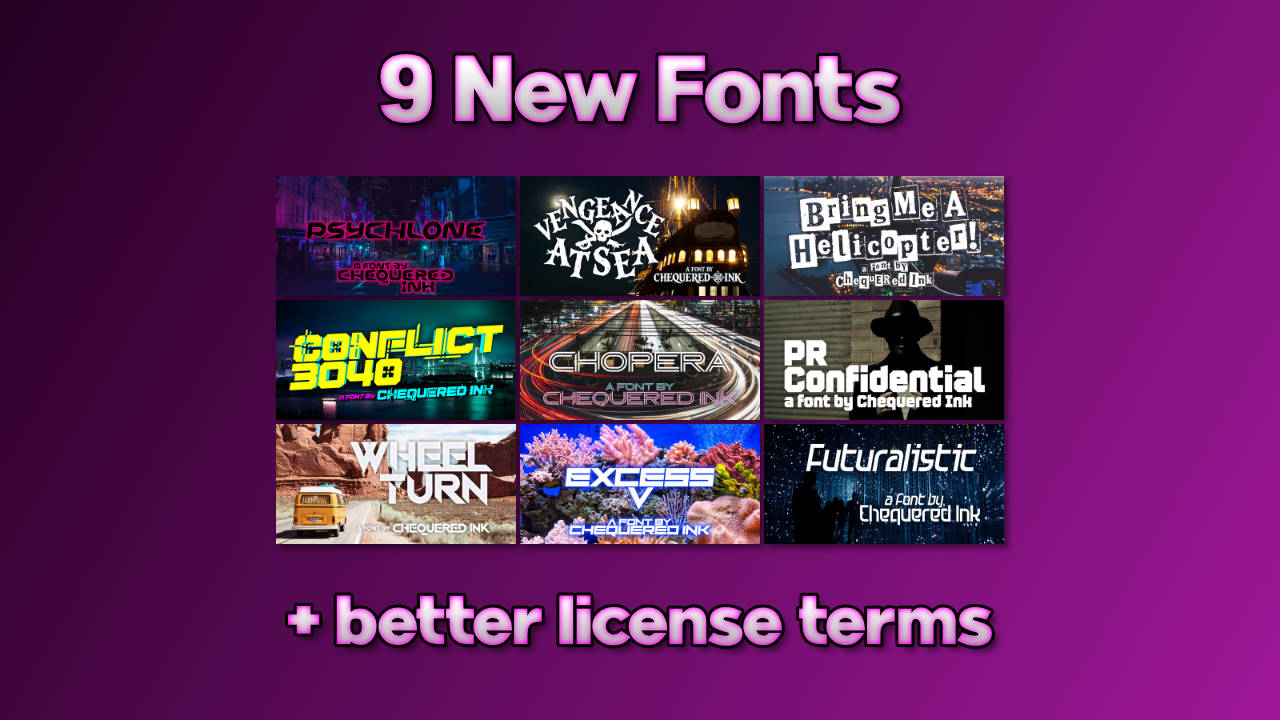
The new fonts cover a variety of different styles, they are:
- Conflict 3040 - a cyberpunk military font
- Chopera - a futuristic techno font
- PR Confidential - a spy-themed, chunky font
- Wheel Turn - a sharp, techno font
- Futuralistic - a thin, futuristic font
- Excess V - a chunky, futuristic font
- Psychlone - an alien-looking sci-fi font
- Vengeance at Sea - a vintage, piratey font
- Bring Me A Helicopter! - a ransom note-style font
We're happy with a straight up font declaration to be honest, with just a CSS comment saying the font needs to be licensed by Chequered Ink or something. We added this clarifying language so that hopefully you don't have to go to any inconvenient measures to obscure the font!